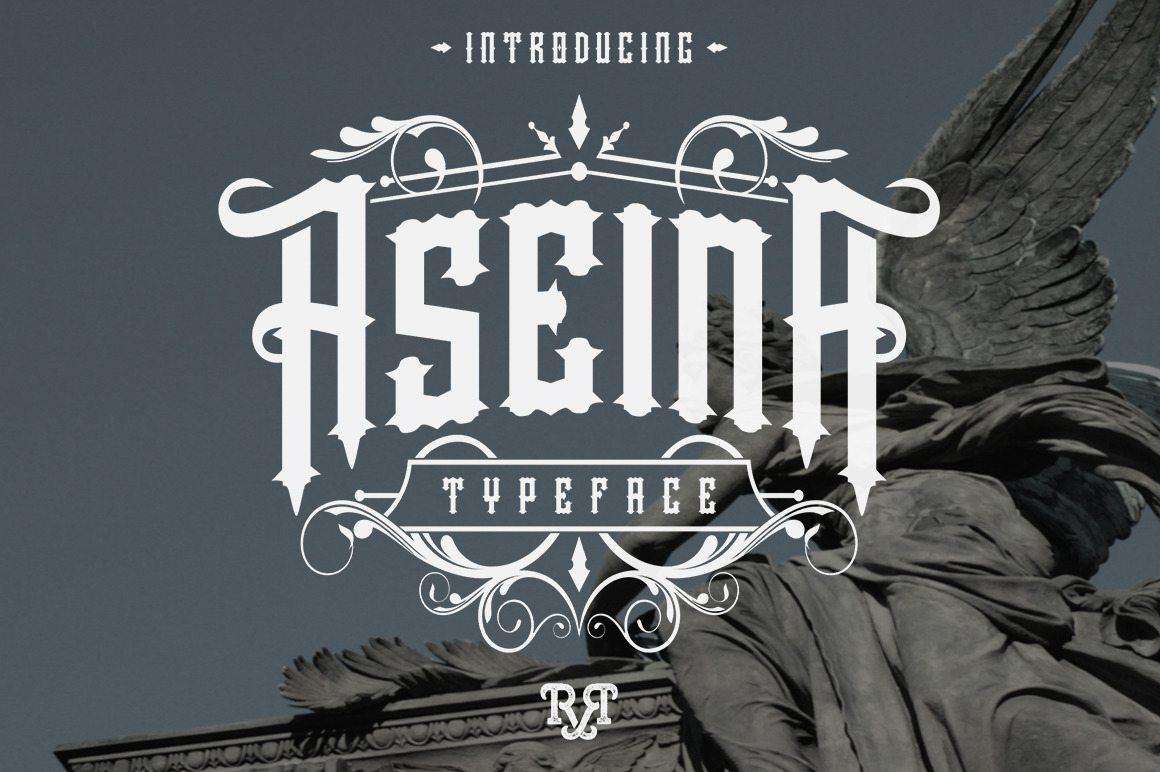
Aseina Typeface + Bonus
Aseina typeface is new font from Rvq Typefoundry, new typeface with classy, elegant and vintage feel character set. To create the beautiful combination, just mix the uppercase and lowercase then mix with the alternative glyphs. The aseina typeface includes a full set of capital and lowercase letters, as well as multi-lingual support, currency figures, numerals, punctuation & some extra glyphs. Bundling with vector bonus.
Aseina Typeface
Aseina Typeface Style II
Aseina Typeface Style III
Vector Bonus
Character Set A-Z
-Numerals & Punctuations (OpenType Standard)
-Accents (Multilingual characters)
-Stylistic Alternates
Aseina typeface is suitable font for many creative products & designs.